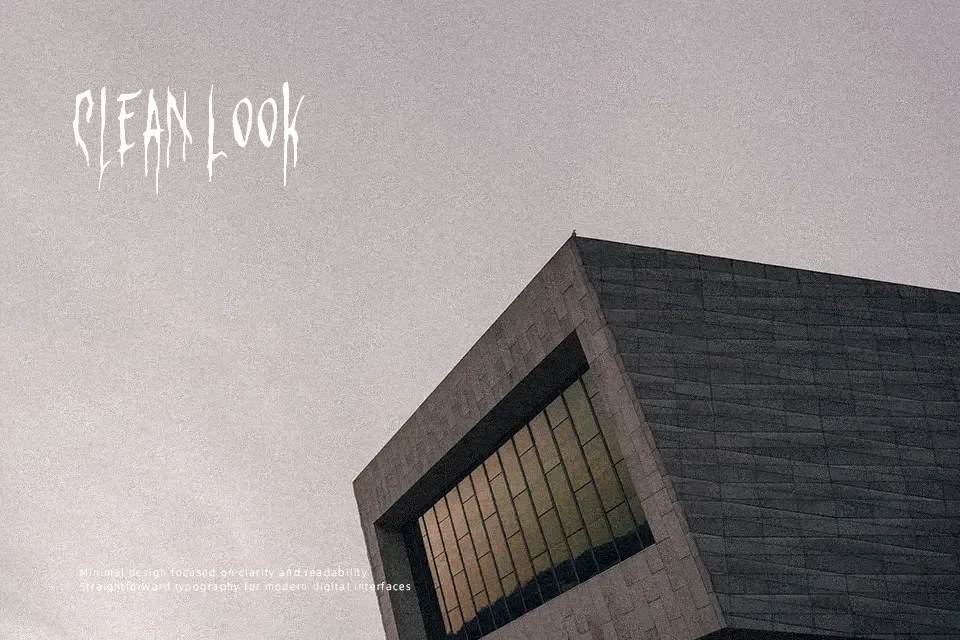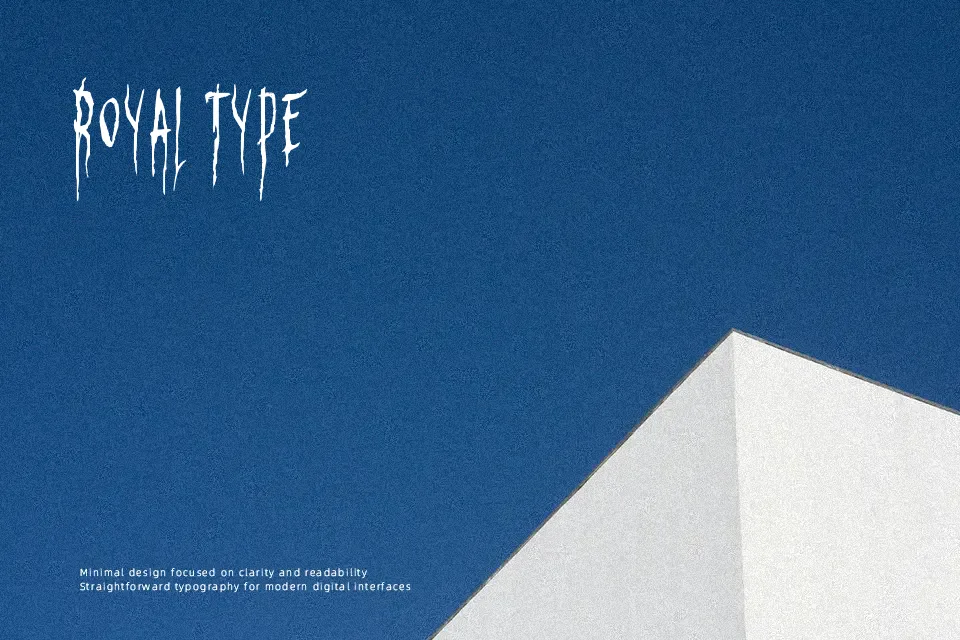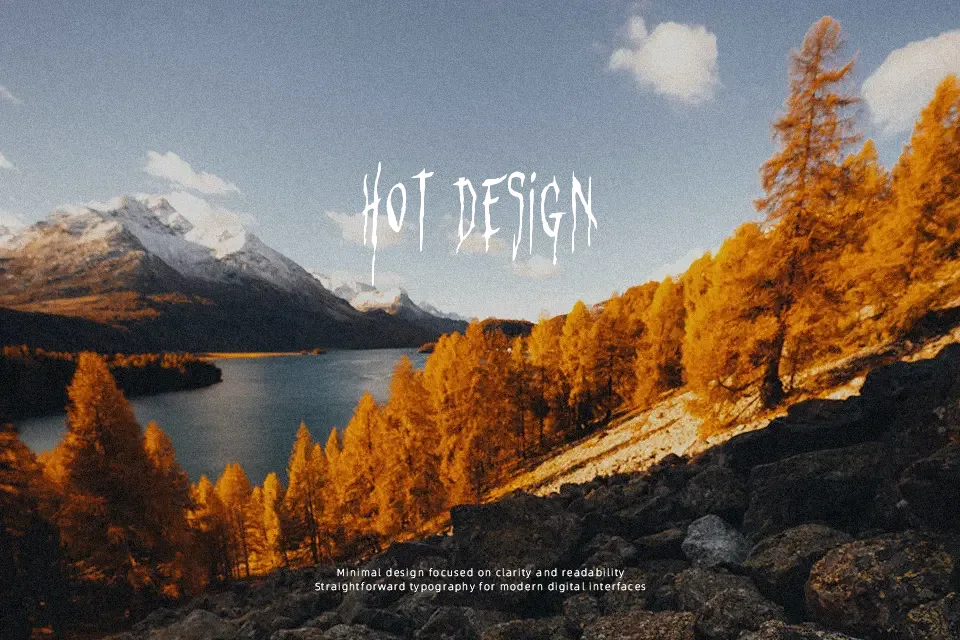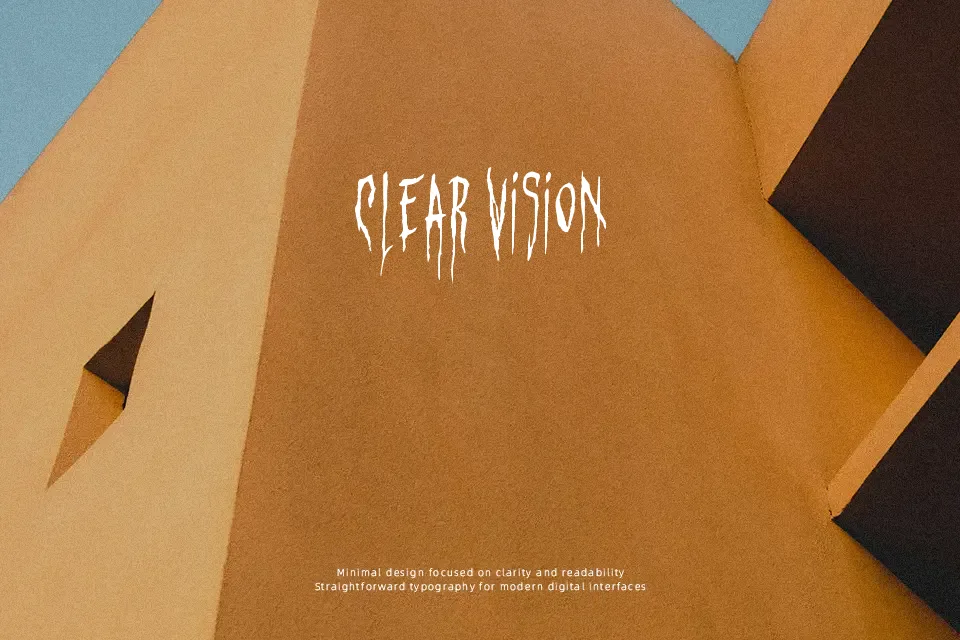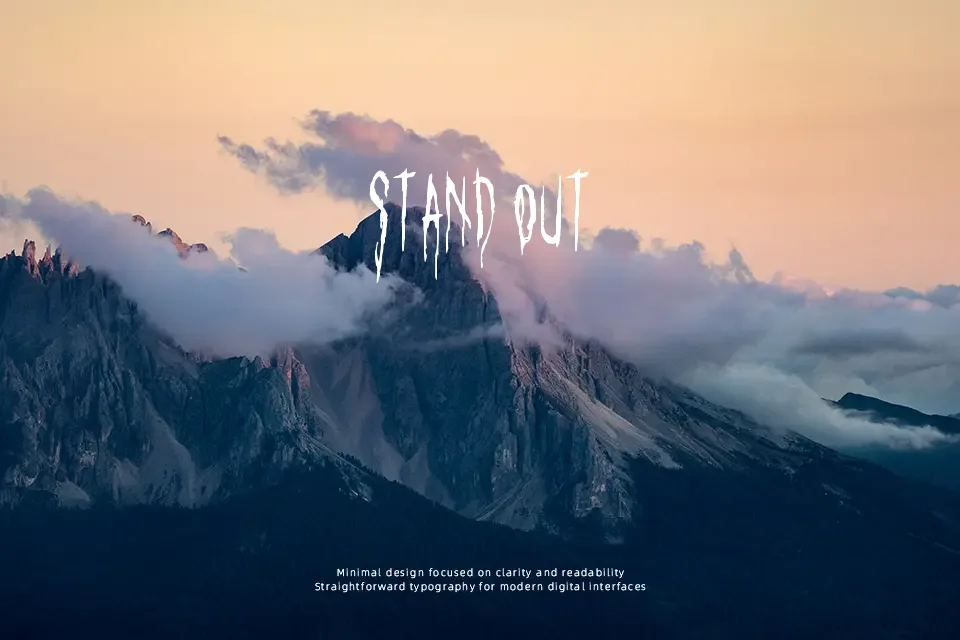
Phantom Phrases Font
Phantom Phrases Font works best as large display text, using narrow, irregular letterforms and sharp, textured strokes to create an unsettled visual rhythm. The characters appear loosely spaced, while the varied edges make each word feel less uniform than a conventional headline face. Its tall proportions and fine details hold attention in poster titles, horror-themed logos, and social graphics. The spacing helps individual letters remain recognizable at larger sizes. However, the delicate, decorative construction becomes harder to read in small captions or extended copy, so it is better reserved for brief, high-impact wording.
Best For: horror film posters,haunted house event graphics,supernatural podcast covers,Halloween social media graphics
Perfect for film, halloween, and logo, with a dark and decorative style.